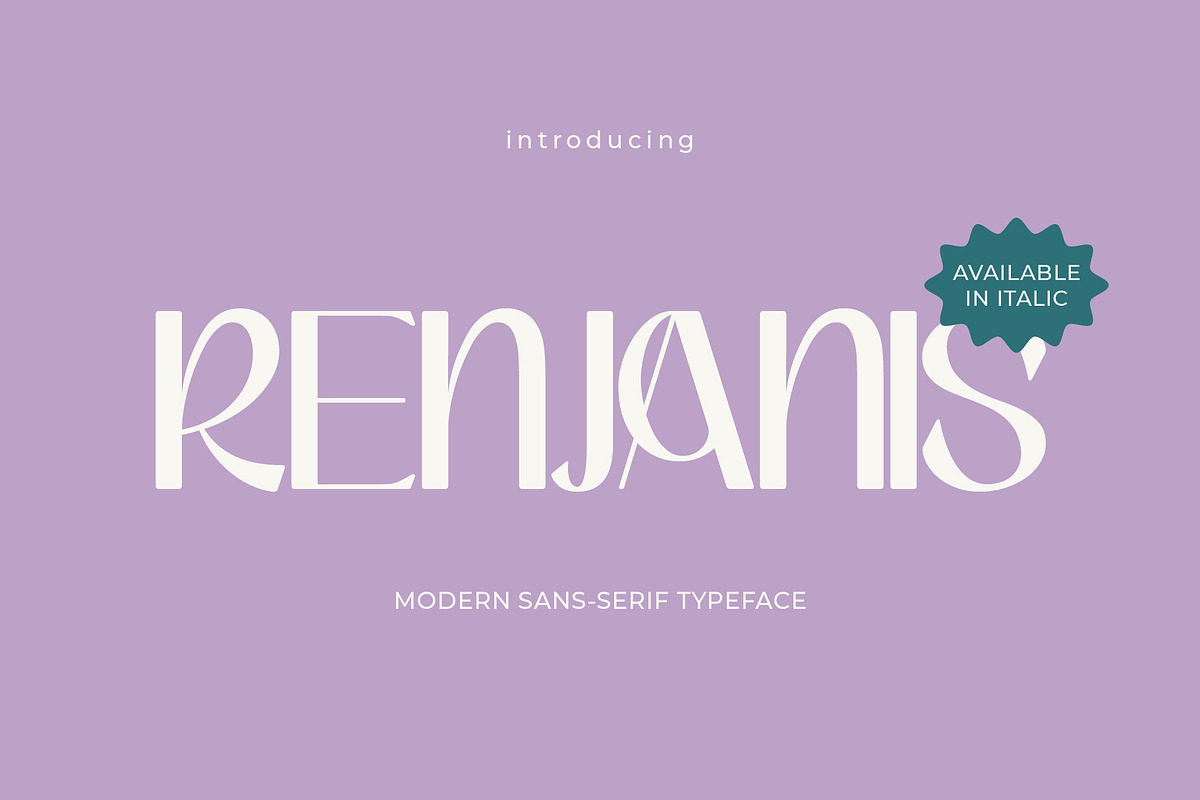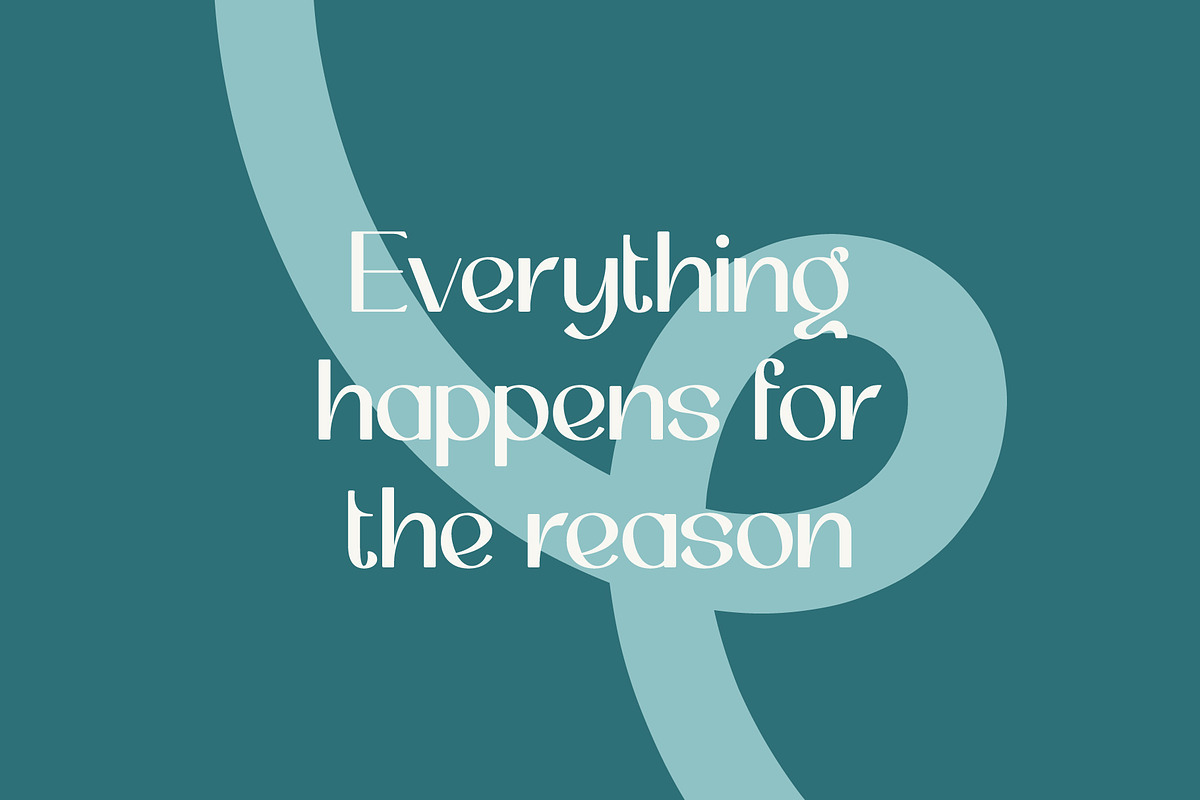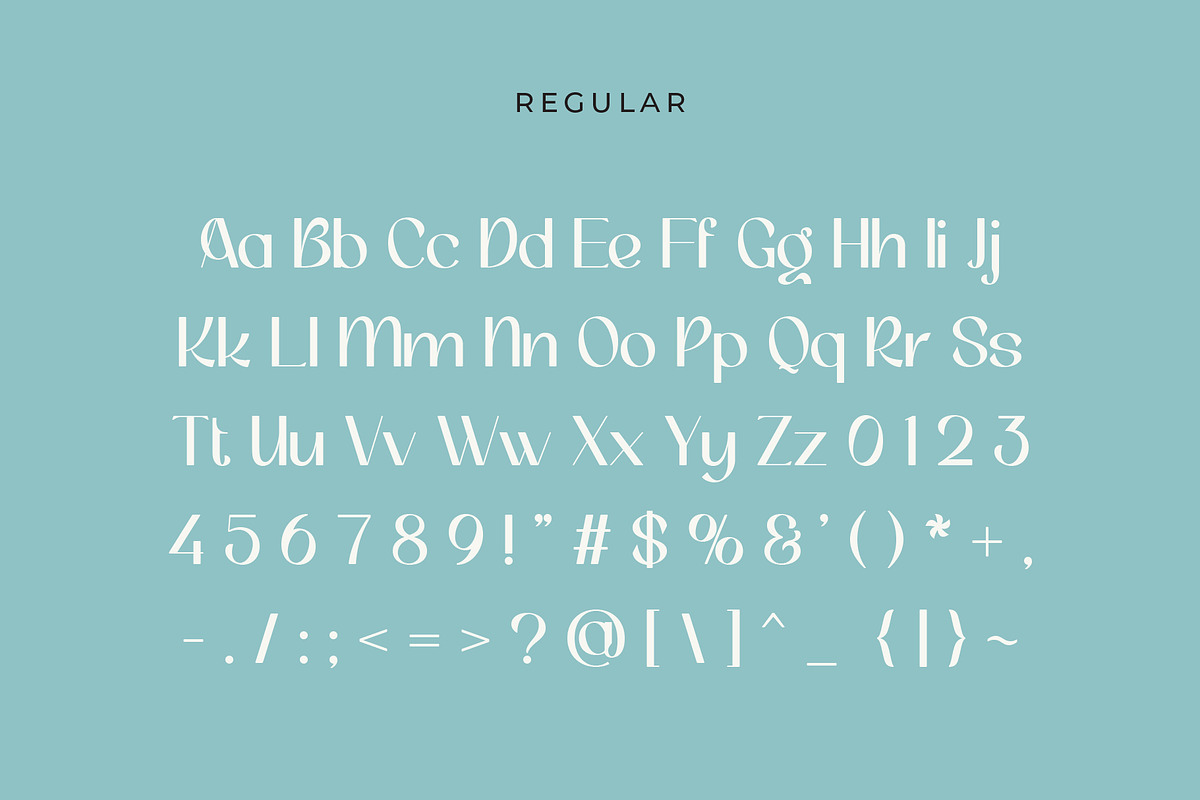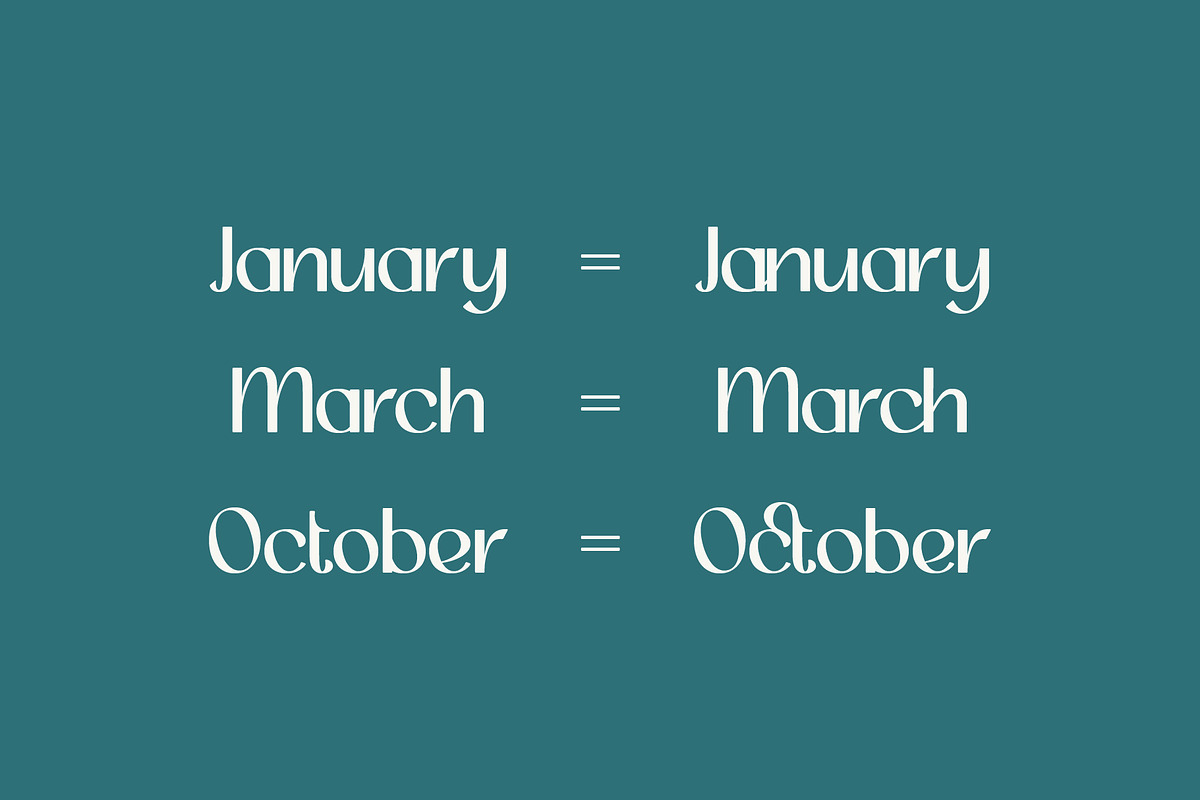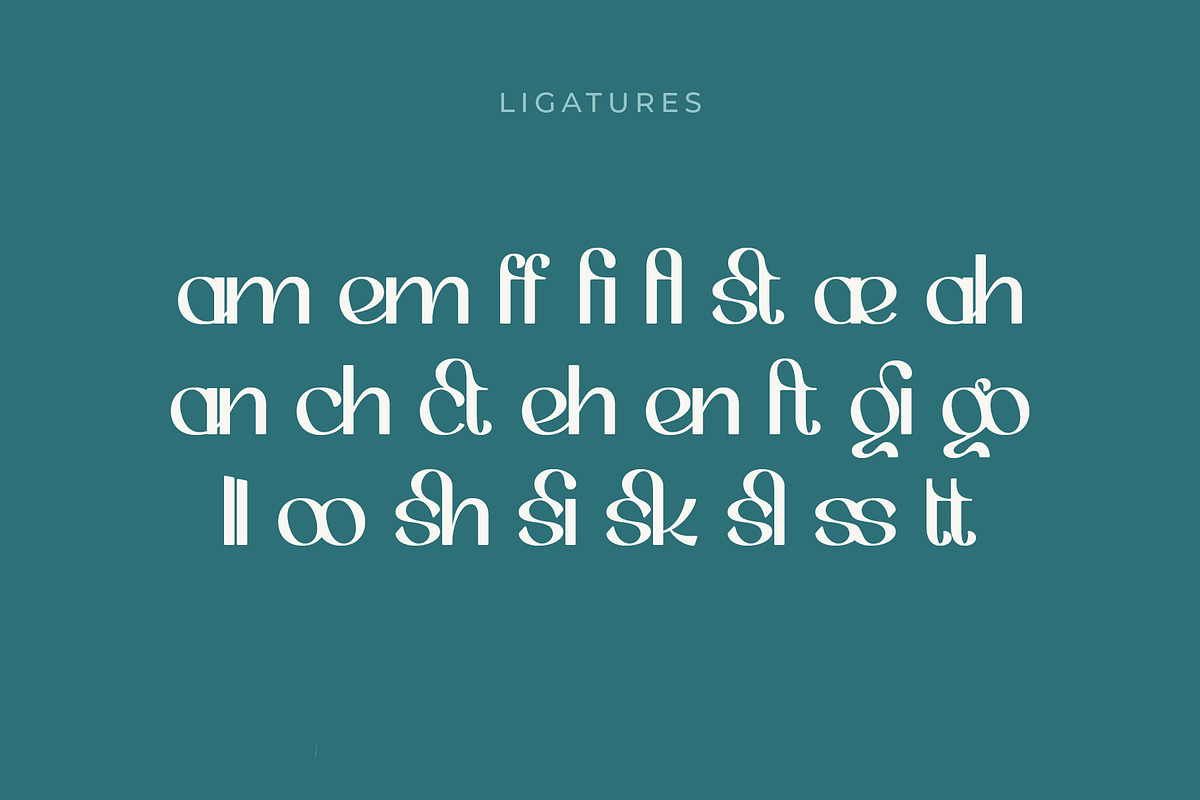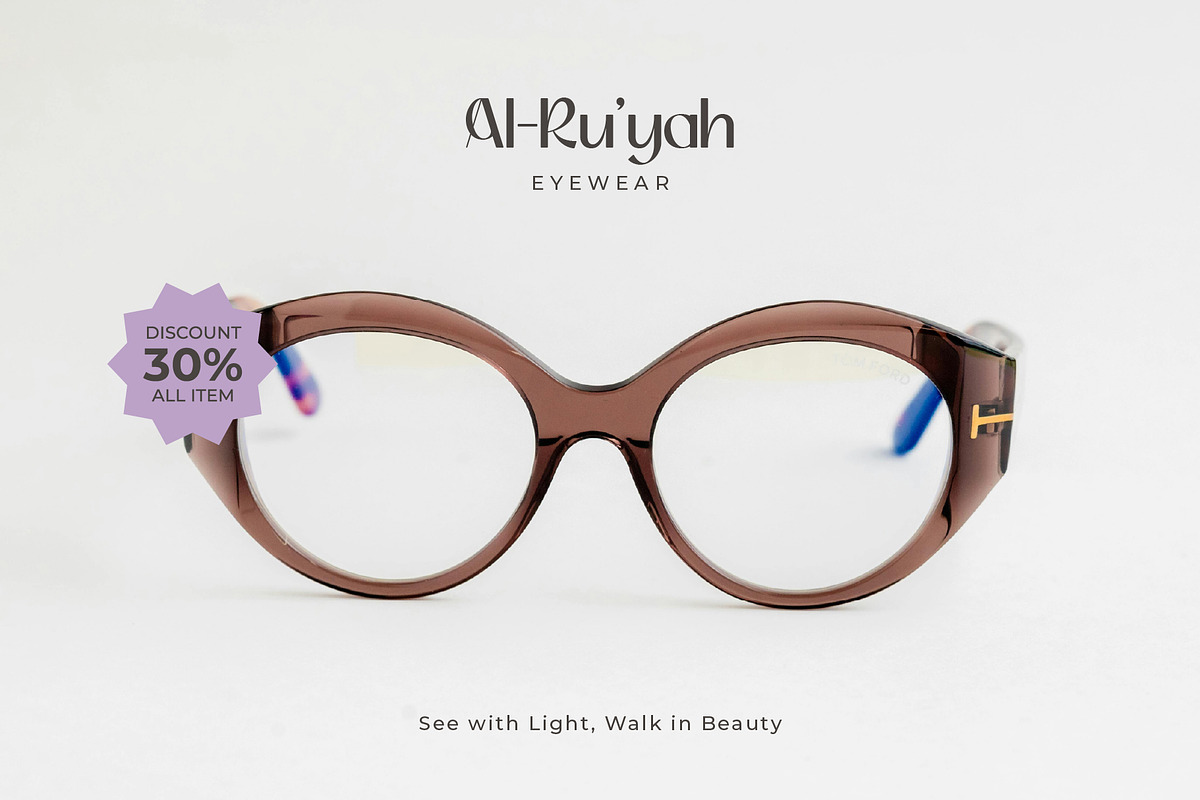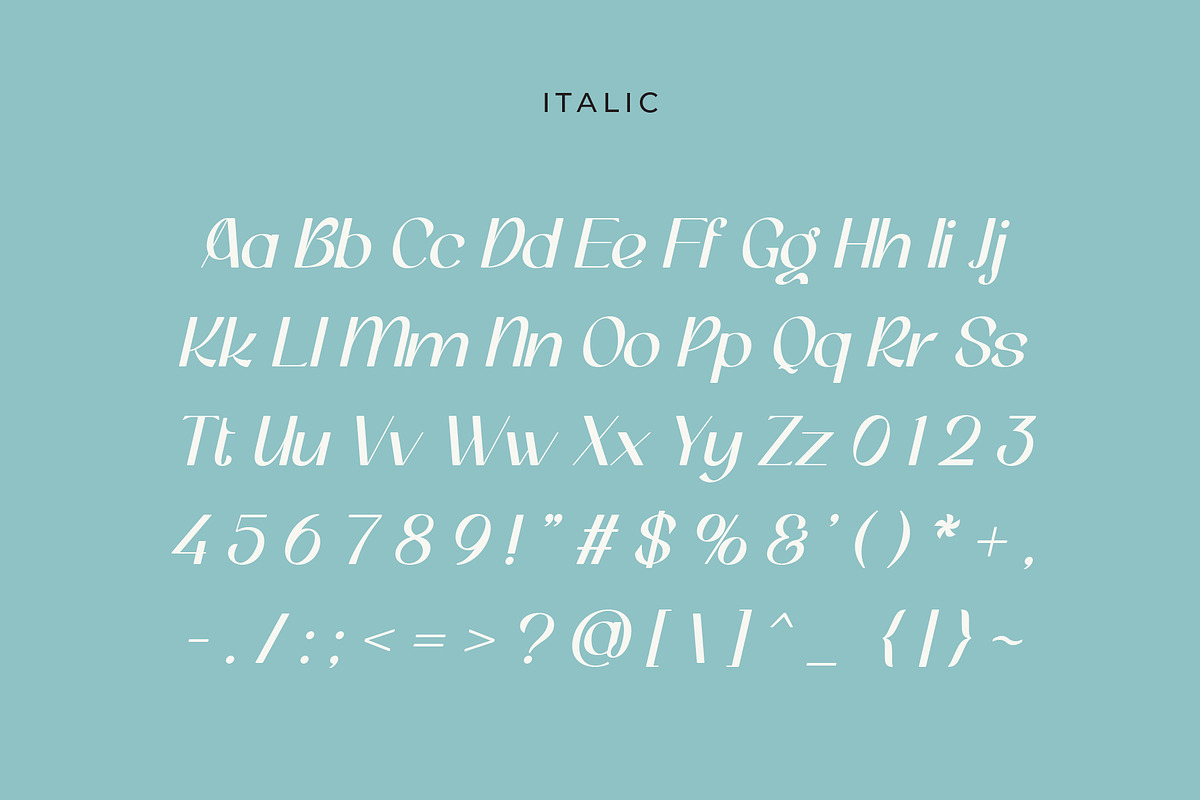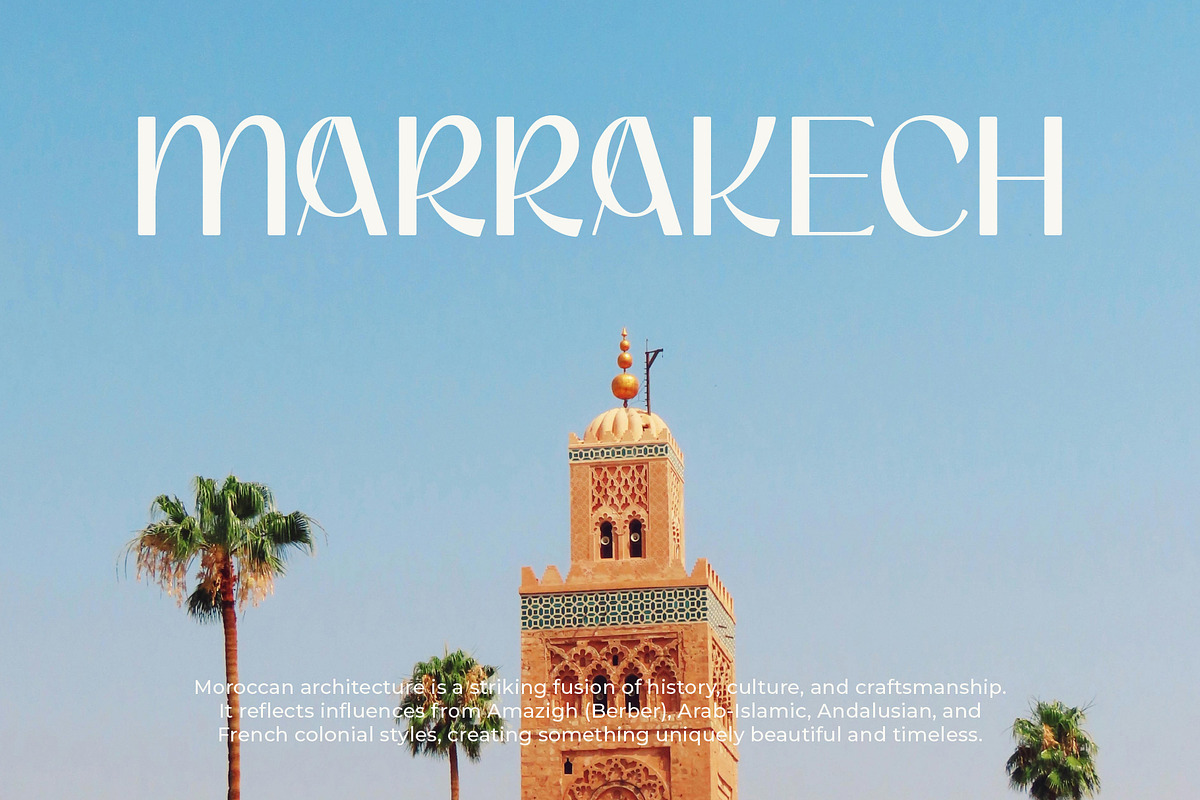
Renjanis - Sans Serif Font
Renjanis is a playful sans serif font with a warm, modern vibe. With clean lines and rounded edges, it’s perfect for anything that needs a touch of fun—think kids’ magazines, greeting cards, posters, stickers, and packaging.
It’s easy to read, super versatile, and brings a friendly feel to both print and digital projects.
What’s Inside:
Renjanis is ready to bring your creative ideas to life—bright, bold, and anything but boring